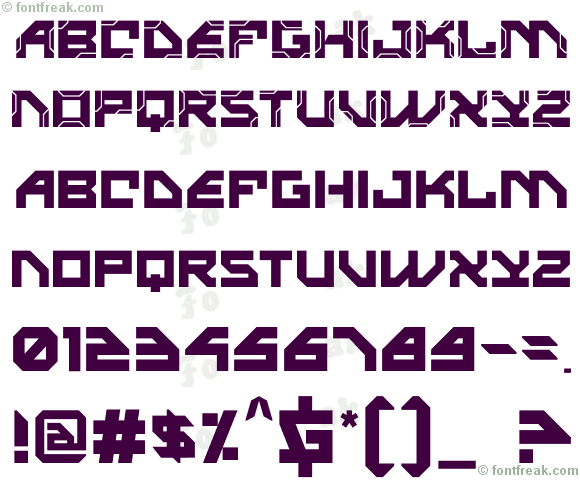
valorax
Valorax, designed by MaknaStudio in 2022, is a striking display font that captures attention with its bold, geometric shapes and modern aesthetics. As a sans-serif typeface, Valorax features a unique blend of clean lines and sharp angles, making it suitable for a variety of creative projects. Its substantial stroke weight and minimal contrast provide a sense of solidity, while the well-balanced spacing between letters enhances legibility. The font's decorative elements are subtle yet impactful, giving it a distinctive character that stands out in any design.
This versatile font excels in multiple use cases. It is ideal for creating eye-catching movie posters, where its modern look can convey excitement and innovation. Additionally, Valorax is perfect for branding small businesses, particularly in industries such as tech, fashion, or lifestyle, where a contemporary and professional appearance is essential. Wedding invitations can also benefit from the bold elegance of Valorax, making them memorable for guests. Furthermore, its striking visual appeal makes it an excellent choice for restaurant menus, helping to create a modern dining experience.
What sets Valorax apart is its ability to blend versatility with a bold personality. This font not only captures attention but also communicates a sense of modernity and professionalism, making it a valuable addition to any designer's toolkit. Whether for print or digital media, Valorax is a typeface that promises to leave a lasting impression.